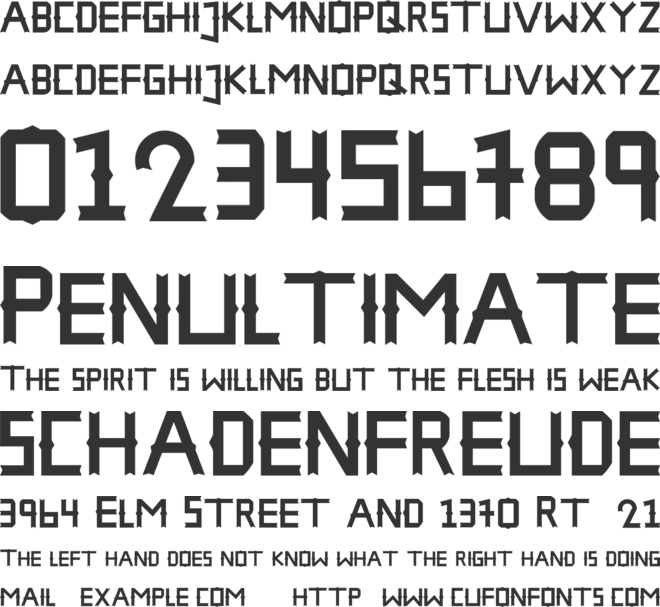
THE HAMPHA Font
Handles Creative
THE HAMPHA font is a display font with a vintage retro style suitable for logos, branding, product packaging, t-shirts, lettering, and other designs. With this font you can make vintage lettering quickly and easily.